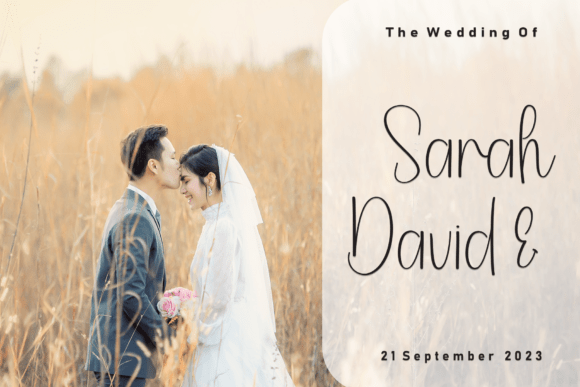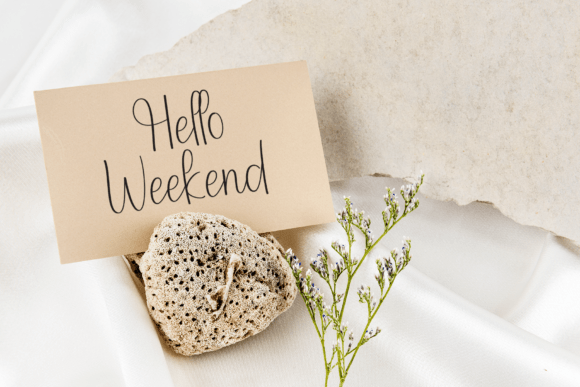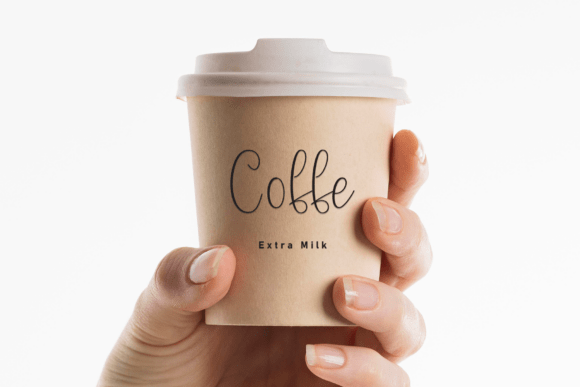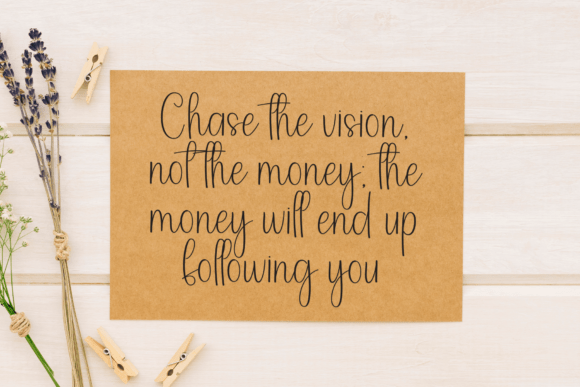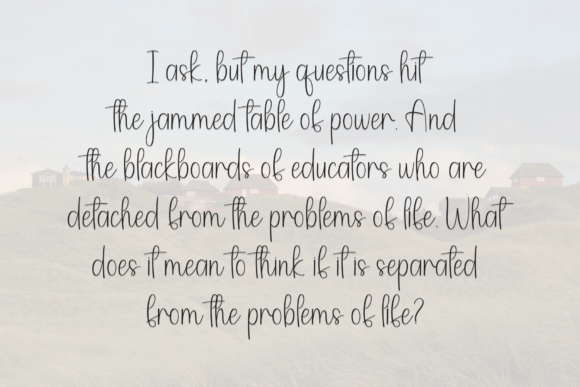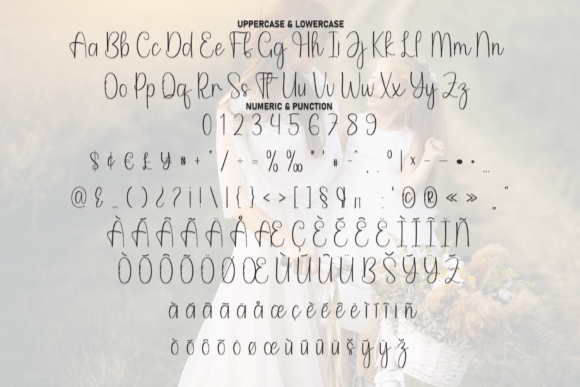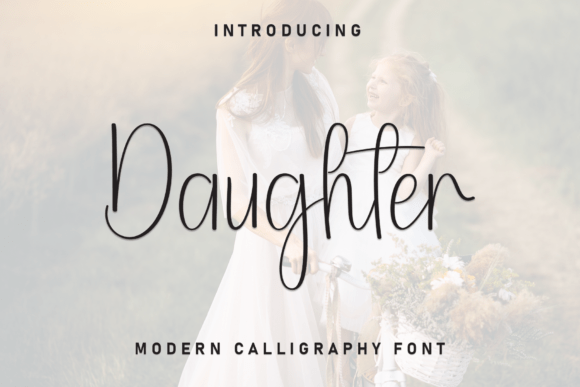
Introducing Daughter Font: Elevate Your Designs with Elegance and Creativity
In the world of typography, few fonts manage to strike a balance between modern elegance and creative flair. Daughter Font is one such exceptional typeface that embodies the essence of hand-drawn calligraphy with a contemporary twist. This stylish script font is designed to inspire designers, crafters, and anyone looking to add a touch of sophistication and artistic charm to their projects.
The Essence of Daughter Font
Daughter Font is characterized by its flowing strokes, graceful curves, and expressive letterforms. Each character is meticulously crafted to convey a sense of movement and fluidity, reminiscent of handwritten calligraphy. However, what sets Daughter apart is its modern elegance and versatility, making it suitable for a wide range of design applications.
Key Features of Daughter Font
- Flowing Strokes and Graceful Curves: The font’s design is marked by smooth, flowing strokes that give it a natural, hand-drawn feel. The graceful curves add to its elegance, making it perfect for designs that require a touch of sophistication.
- Expressive Letterforms: Each letter in the Daughter Font is designed to be unique and expressive, contributing to the overall charm and character of the font. This expressiveness makes it ideal for creative projects where personality and style are paramount.
- Modern Elegance: While the font has a classic, calligraphic feel, it is imbued with a modern sensibility that makes it relevant for contemporary design projects. This blend of old and new ensures that Daughter Font stands out in any design.
- Versatility: One of the key strengths of Daughter Font is its versatility. It can be used for a variety of design projects, including logos, invitations, packaging, and social media graphics, among others.
Applications of Daughter Font
The versatility of Daughter Font makes it an excellent choice for numerous design applications. Here are some of the areas where this font truly shines:
- Logos: For businesses looking to establish a brand identity that is both elegant and creative, Daughter Font offers a compelling solution. Its unique letterforms and flowing strokes can help create a memorable logo.
- Invitations: Whether it’s a wedding invitation, a birthday party invite, or any other special occasion, Daughter Font adds a touch of class and sophistication. Its elegant appearance ensures that your invitations stand out.
- Packaging: For brands that want to convey a sense of luxury, creativity, and attention to detail, Daughter Font can be used effectively on product packaging. It helps in creating a visually appealing and distinctive brand presence.
- Social Media Graphics: In the realm of social media, standing out is crucial. Daughter Font can be used to create engaging and stylish graphics that capture the audience’s attention and convey your message with elegance.
Why Choose Daughter Font?
Choosing Daughter Font for your design projects comes with several benefits:
- Unique and Creative: It offers a fresh and creative take on script typography, allowing your designs to stand out.
- Elegant and Sophisticated: The font’s modern elegance and refined details add a sophisticated touch to any design.
- Versatile: Its suitability for a wide range of projects makes it a valuable addition to any designer’s toolkit.
- Easy to Use: Designed with the user in mind, Daughter Font is easy to integrate into various design projects, making it accessible for designers of all levels.
Daughter Font is more than just a typeface; it’s a design element that can elevate your projects with its elegance, creativity, and modern flair. Whether you’re a professional designer or a crafting enthusiast, this stylish script font offers endless possibilities for adding a touch of sophistication and artistic charm to your work. With its flowing strokes, graceful curves, and expressive letterforms, Daughter Font is poised to become a favorite in the world of typography and design.
Embrace the beauty of hand-drawn calligraphy with a contemporary twist by incorporating Daughter Font into your designs. Experience the blend of visual charm and versatility that this exceptional font has to offer. Elevate your designs to new heights of elegance and creativity with Daughter Font.